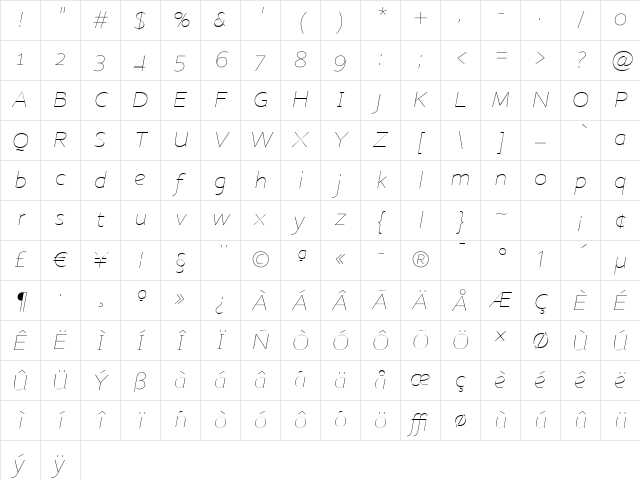
Nubian Italic Free Font
Nubian Italic
Design Context for Nubian
Nubian is a composed and adaptable typeface that performs quietly and consistently across a wide range of design contexts. The slanted form adds forward momentum and visual energy.